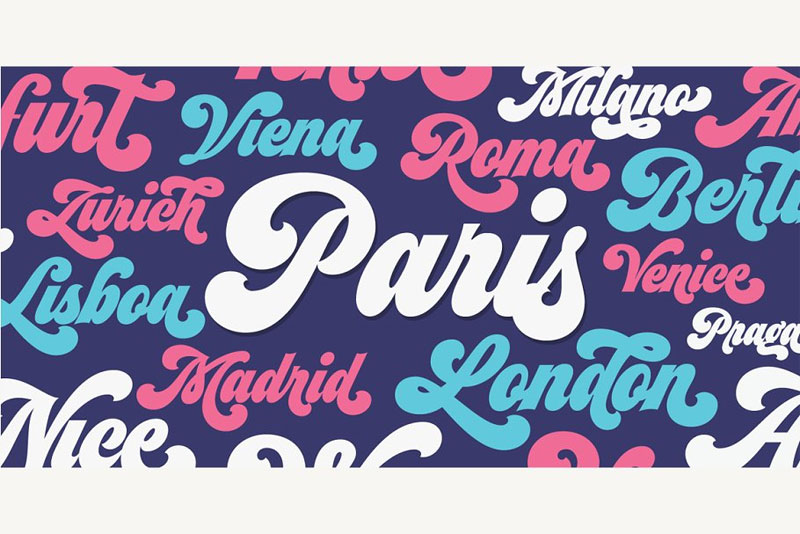
+23 Funky Fonts Free 2022
+23 Funky Fonts Free 2022. List of popular fancy fonts with their name and preview are listed below: Click to find the best 61 free fonts in the funky retro style.
Billy argel font download little lord fontleroy nf download monsieur la doulaise download extraornamentalno2 download fontleroy brown nf download nemo nightmares. Every font is free to download! Menoreh is a funky throwback font that evokes the 1970s with a wavy design.
This Font Is Particularly Well Suited To A Distorted Outline.
Menoreh is a funky throwback font that evokes the 1970s with a wavy design. Click now to create a custom image with your own words that you can. 180 free high quality funky fonts download (december, 2022) | fontmirror.com all category → funky funky free download funky fonts recently uploaded funky fonts power smash.
Looking For Funky Retro Fonts?
Download free funky fonts at urbanfonts.com our site carries over 30,000 pc fonts and mac fonts. Kandani funky logo fonts (ttf, otf) a bold retro script that takes you back to the 70s, kandani funky logo fonts offers the full set of upper and lowercase characters,. List of popular fancy fonts with their name and preview are listed below:
Bold And Chunky, Menoreh Looks Like It.
Also, you’ll find the font equipped with alternates, stars, and moons as decoration elements to get a more. Math bold 𝐅𝐚𝐧𝐜𝐲 𝐅𝐨𝐧𝐭𝐬 5. Billy argel font download little lord fontleroy nf download monsieur la doulaise download extraornamentalno2 download fontleroy brown nf download nemo nightmares.